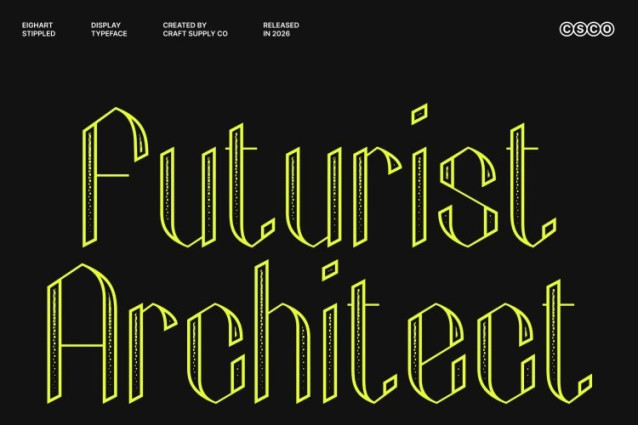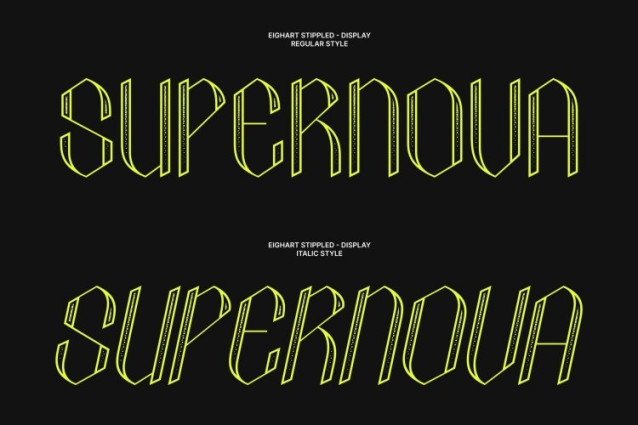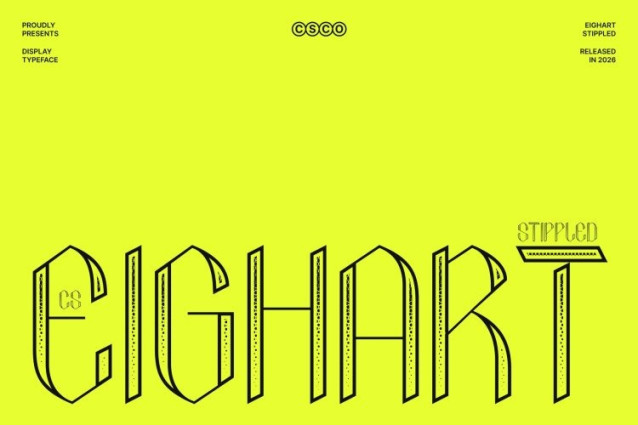
Eighart Stippled Font
Eighart Stippled Font is a striking display font that merges futuristic aesthetics with bold high-contrast typography. Inspired by the visual language of modern technology, its sleek lines and sharp edges create a refined yet powerful presence. Enhanced with a stippled texture, the font gains a subtle dotted surface that introduces depth and a handcrafted visual layer, giving the futuristic design a unique and sophisticated character.
Tech-Inspired Forms with High-Contrast Precision
Defined by dramatic contrast between thick and thin strokes, this font creates a dynamic rhythm that immediately captures attention. The crisp geometry and angular details reflect the precision of modern digital design, while the stippled finish softens the surfaces with delicate texture, producing a balance between sharp technological clarity and artistic nuance.
Modern Innovation with Distinctive Style
The combination of high contrast and futuristic structure gives a bold and contemporary personality. Its letterforms feel innovative and forward-thinking, making the typography ideal for projects that want to communicate modernity, sophistication, and creative vision.
Versatile for Tech and Creative Design
This font works beautifully for technology branding, digital product visuals, editorial headlines, posters, and experimental layouts. By blending futuristic form with textured stippled detailing, the font delivers a visually compelling typographic voice that feels modern, distinctive, and confidently innovative.